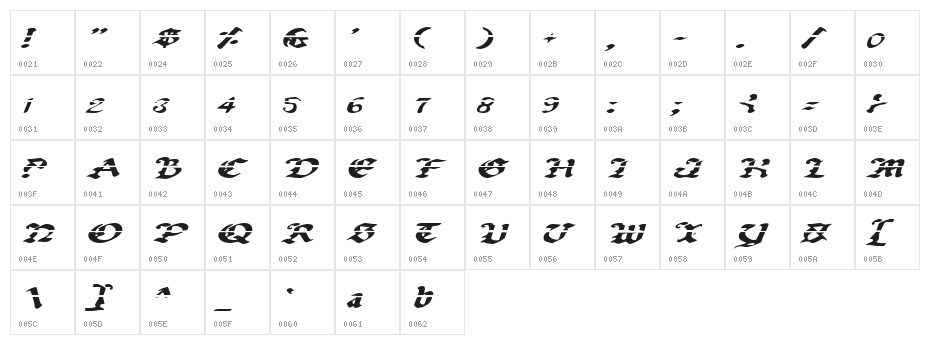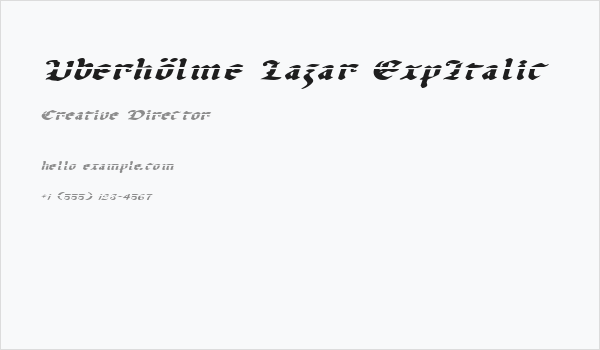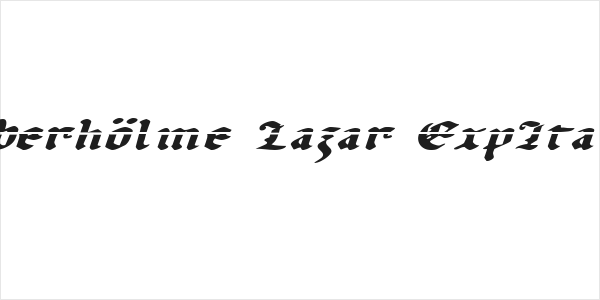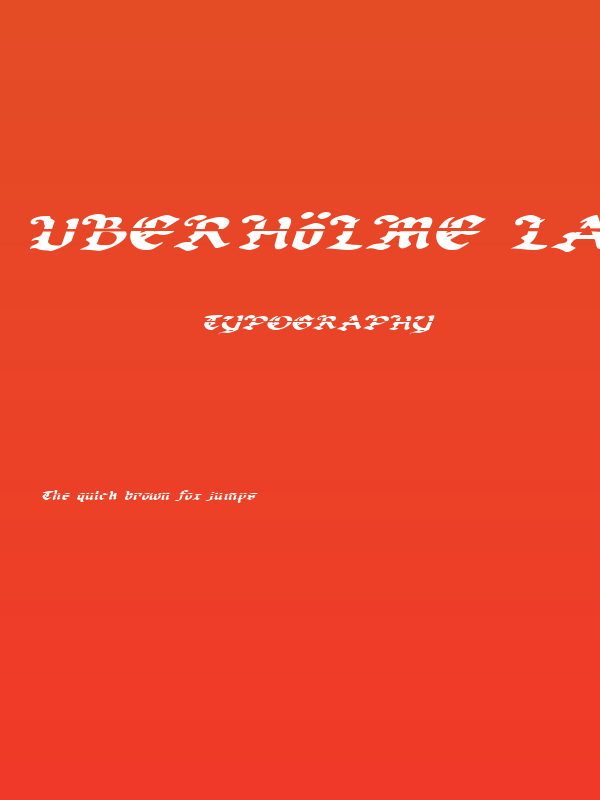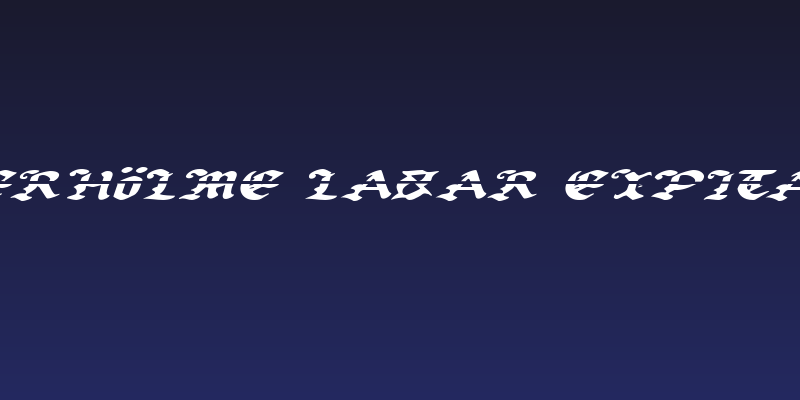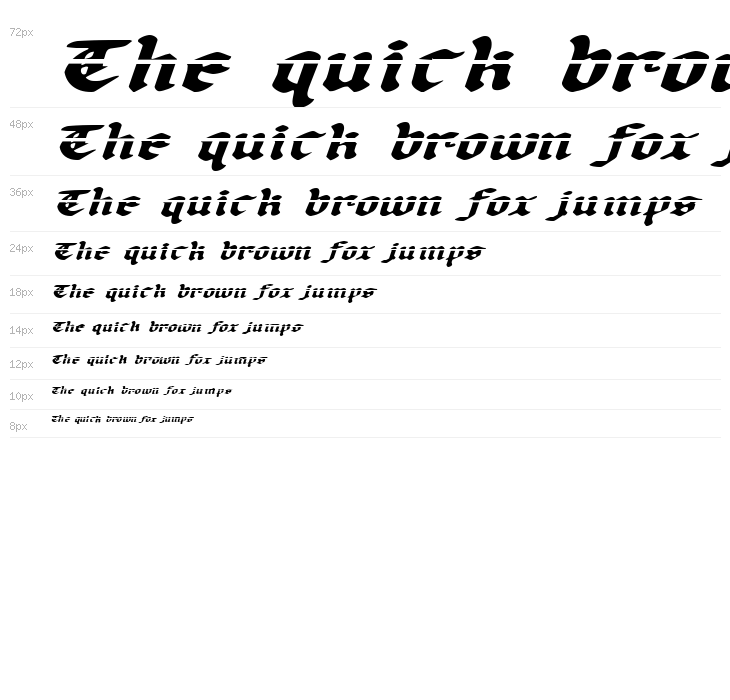
Uberhölme Lazar ExpItalic Font
Uberhölme Lazar ExpItalic Description
This font features a bold and expressive style with a distinct italic slant, reminiscent of traditional calligraphic scripts. The characters are intricately designed with sharp angles and dramatic strokes, giving it a dynamic and energetic appearance. The uppercase letters are particularly striking, with elaborate flourishes that enhance their visual impact. The lowercase letters maintain a consistent style, ensuring readability while preserving the font's decorative nature. Numbers and special characters are equally stylized, making this font suitable for creative and artistic projects.
| Use Case | Logos, Posters, Branding |
| Proposed Projects | Ideal for branding, logos, posters, and any project requiring a bold, artistic touch. |